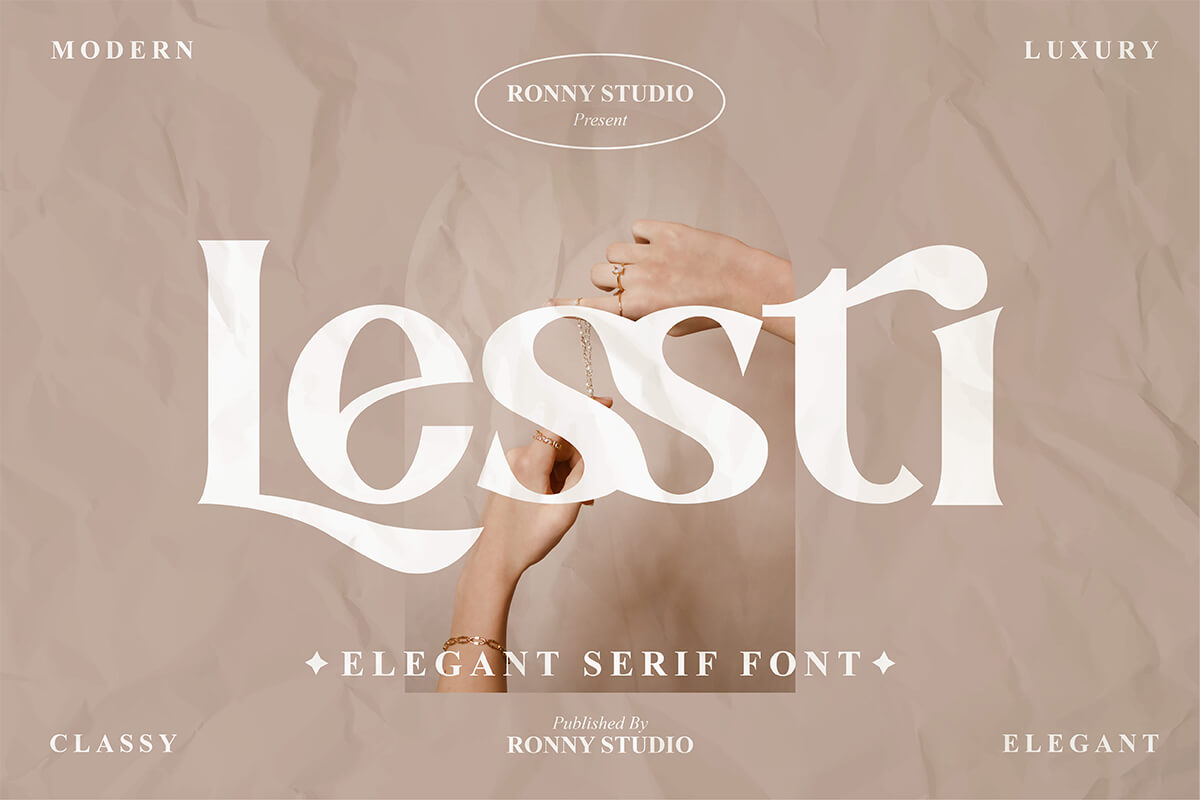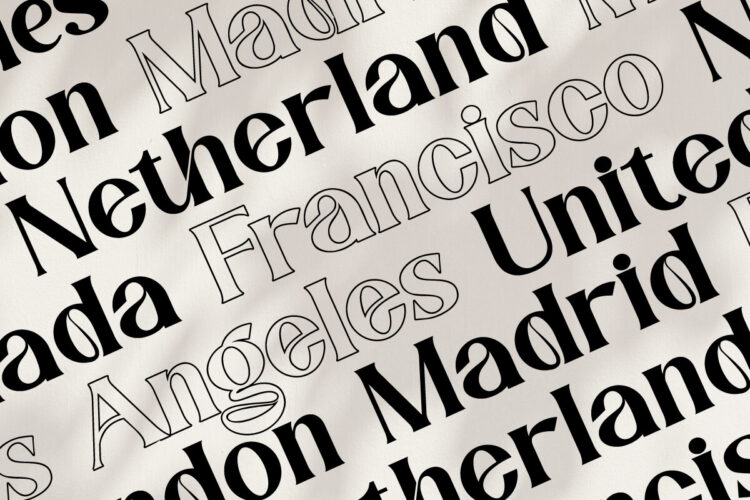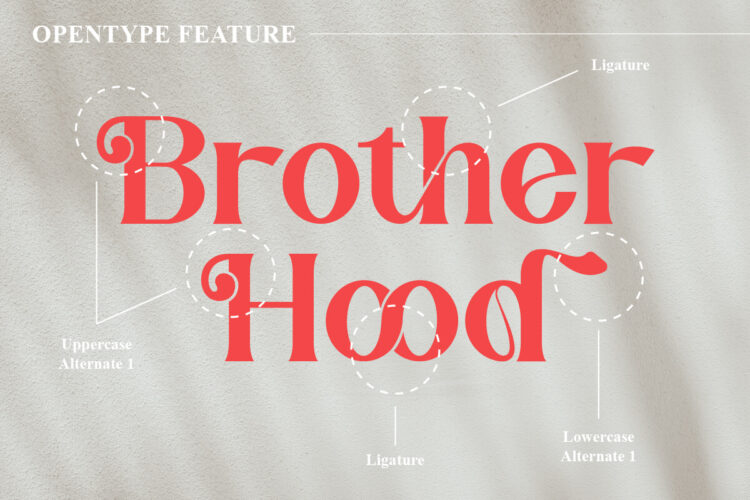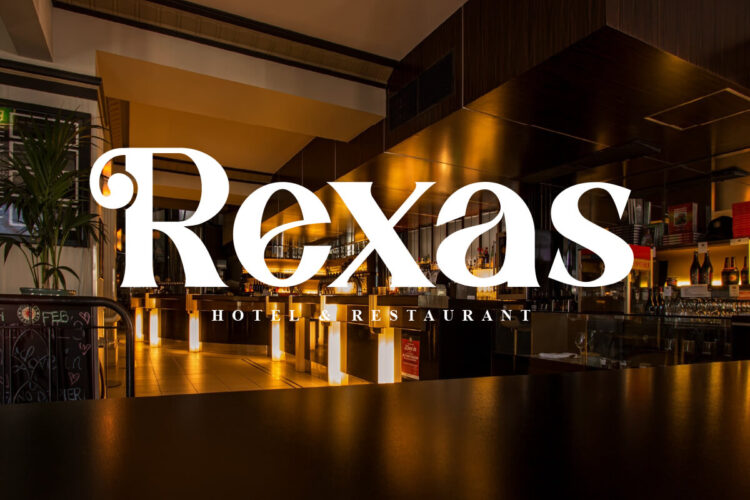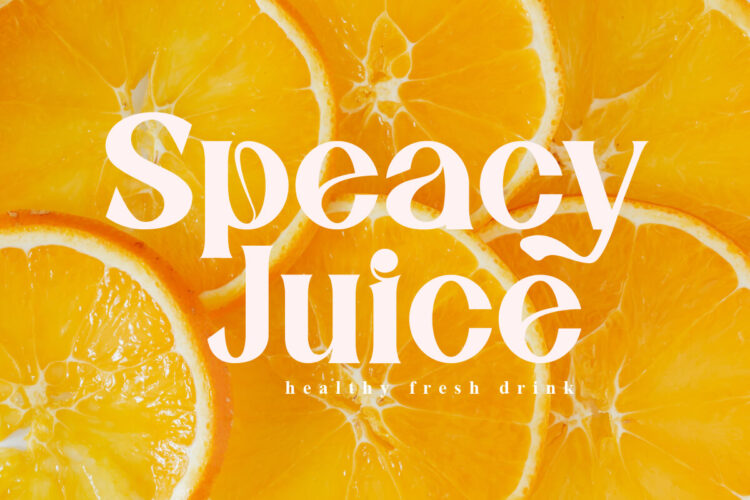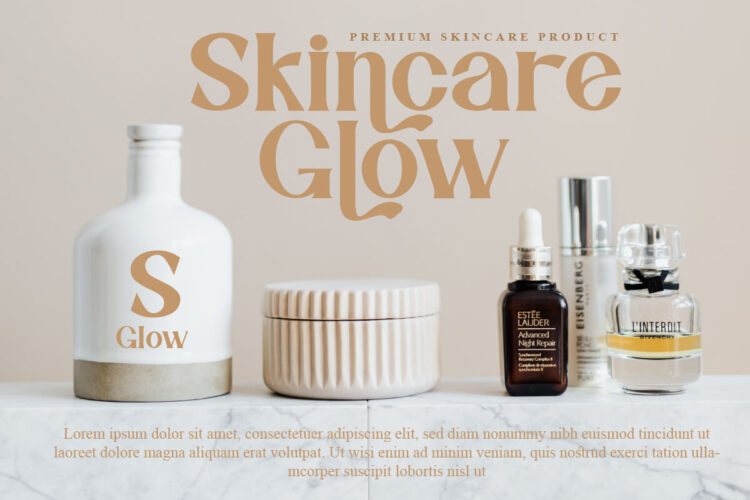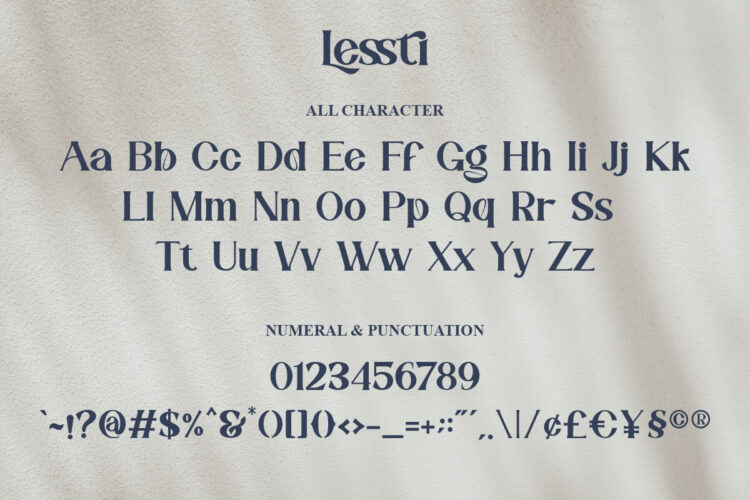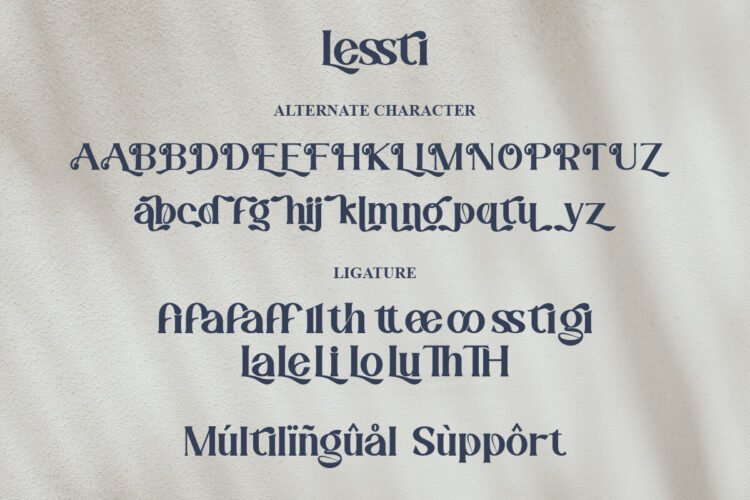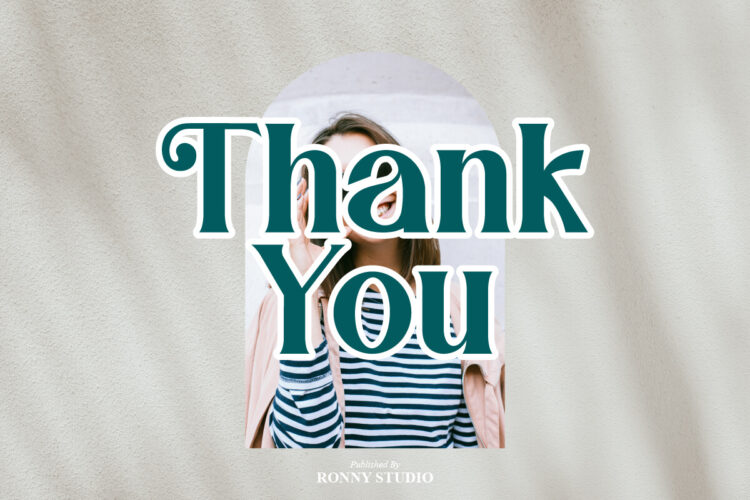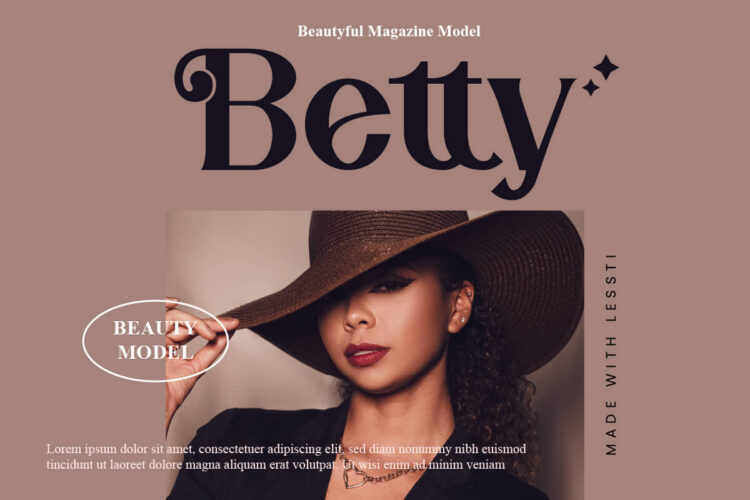
Lessti is an elegant and vintage style serif font. This font is impressive and features elegant and professionally shaped fonts, and as a result, it will easily match a variety of creations that require a different touch.
• Uppercase & Lowercase
• Number & Punctuation
• Ligature & Alternate
• Multilingual Support
• Regular
• Italic
• Bold
• Outline
Lessti – Elegant Serif Font